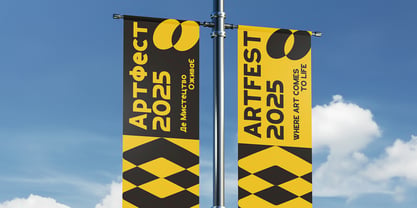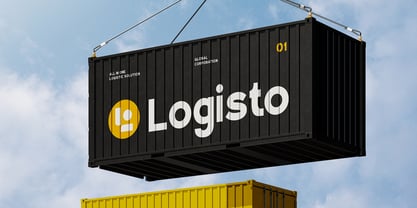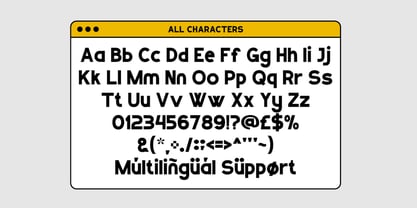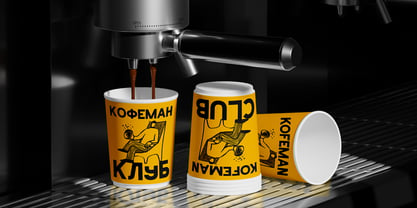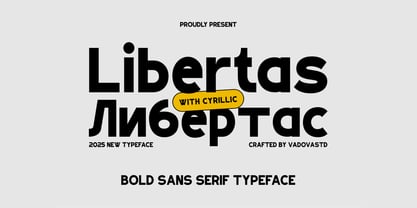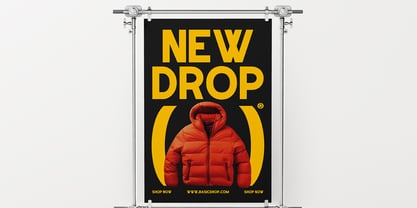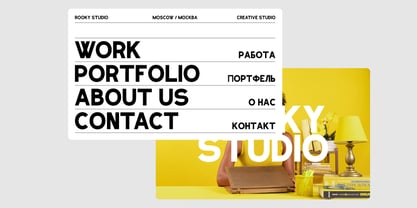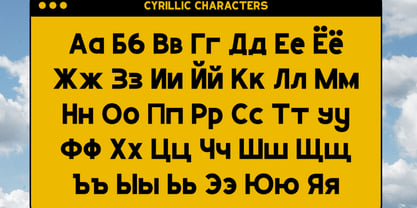
Libertas
by Vadova Std
Libertas is a bold and modern sans serif typeface designed for strong visual impact and high readability. Featuring clean geometry with rounded proportions, this font is ideal for headlines, branding, posters, logos, packaging, and digital content. Libertas is highly relevant for designers seeking a bold and confident typeface that stands out instantly. It is ideal for branding projects, logo design, posters, social media graphics.